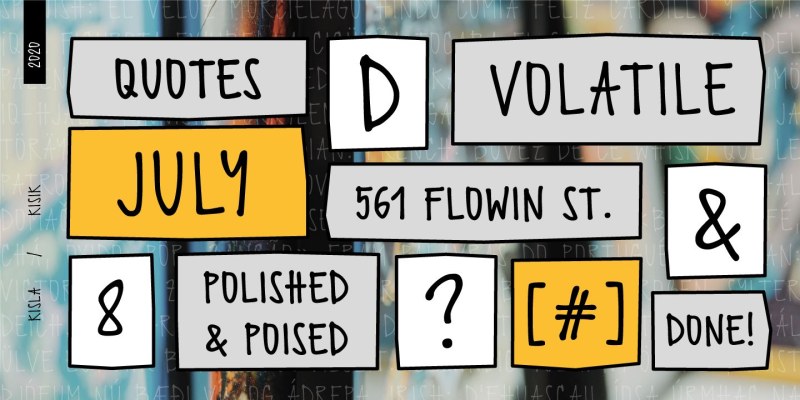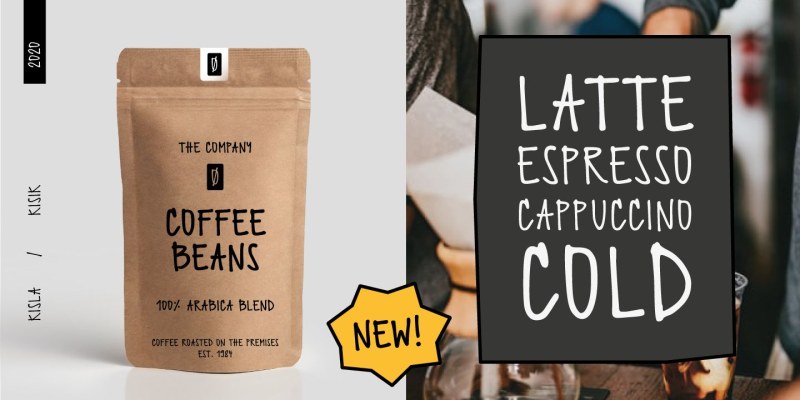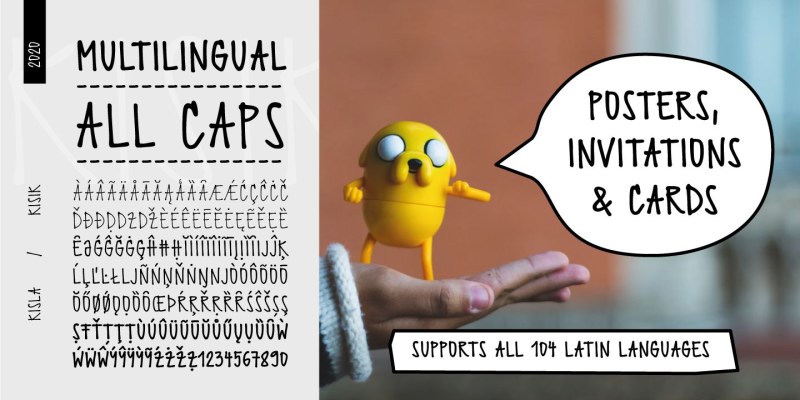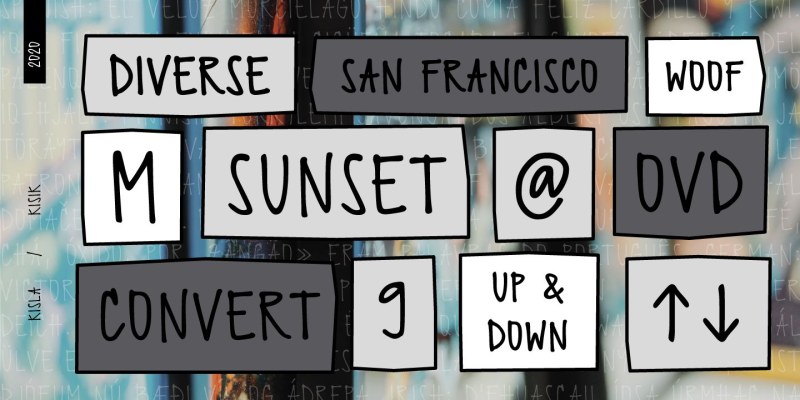
Kisik Font Family
Kisik is a handwritten font. I got a request to put my handwriting into a font, so I decided to take the challenge and design a whole typeface with three weights (light, regular, bold) and 638 glyphs to cover all 104 Latin languages. This is my first time making a font. I hope you’ll enjoy it. I sure did Make it